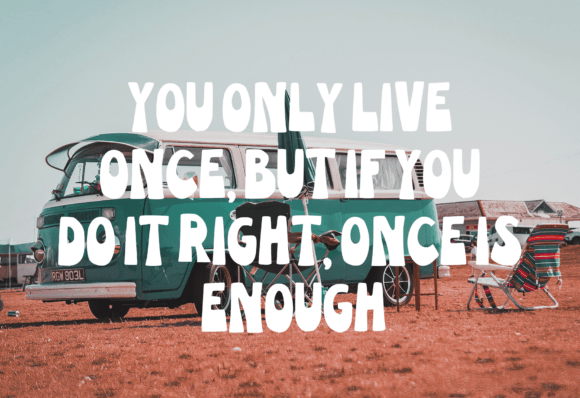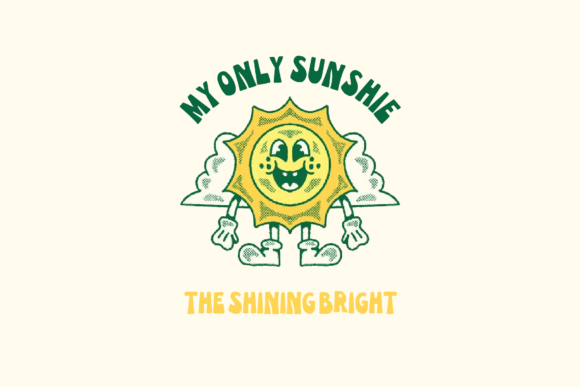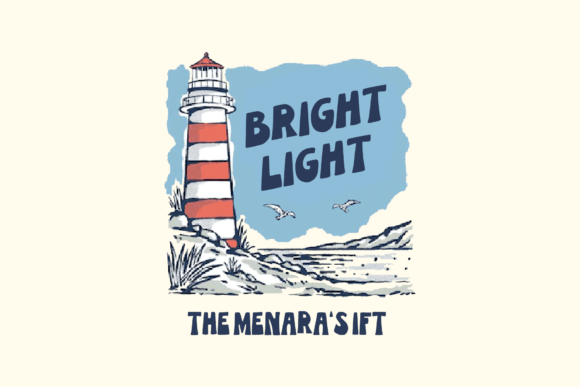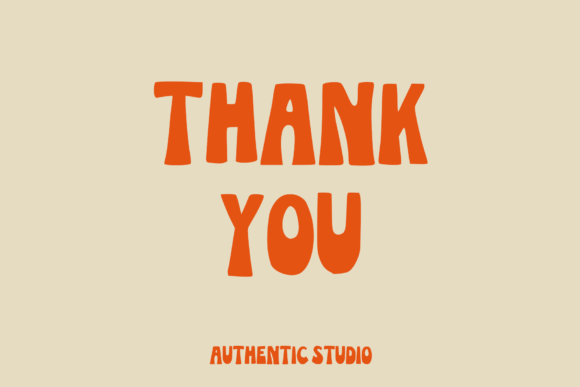
Bondan Font: Elevate Your Designs with a Retro Twist
In the realm of typography, fonts play a pivotal role in bringing a design to life. Among the myriad of fonts available, Bondan stands out as a magnificent and bold display font that can instantly add a retro touch to your projects. Whether you’re working on a branding campaign, a website design, or crafting a vintage-inspired artwork, Bondan is poised to become your go-to asset. Its versatility and distinctive charm make it an excellent addition to any designer’s font library.
The Essence of Bondan Font
Bondan is not just another font; it’s an experience. It embodies the essence of retro design while maintaining a level of sophistication that appeals to contemporary tastes. This bold display font is meticulously crafted to make a statement, offering a unique character that can elevate any design idea. From the bold and curvaceous lines to the meticulous attention to detail, Bondan exudes a sense of nostalgia that is hard to ignore.
One of the standout features of Bondan is its incredible versatility. Regardless of the subject matter or the industry you’re catering to, this font seamlessly adapts and enhances your design. Whether you’re creating a vintage-themed poster, a modern logo, or an engaging social media graphic, Bondan brings a level of sophistication and charm that is unparalleled. Its adaptability makes it a valuable resource for designers who work across various mediums and projects.
Why Choose Bondan?
- Retro Appeal: In an era where modern and minimalist designs are prevalent, Bondan offers a refreshing change with its bold and retro aesthetic.
- Legibility: Despite its bold nature, Bondan maintains excellent legibility, ensuring your message is conveyed clearly and effectively.
- Uniqueness: Stand out from the crowd with a font that is distinctive and memorable.
- Easy to Pair: Bondan can be paired with a variety of fonts to create stunning contrasts and hierarchies in your designs.
Applications of Bondan Font
The applications of Bondan are vast and varied. Here are a few ideas to get you started:
- Branding and Logos: Create a lasting impression with a logo that stands out.
- Posters and Flyers: Add a touch of nostalgia to your promotional materials.
- Web Design: Use Bondan to create headers, titles, and highlights that draw attention.
- Social Media Graphics: Elevate your social media presence with eye-catching graphics.
- Packaging: Stand out on the shelves with unique and captivating packaging designs.
Tips for Using Bondan Effectively
To make the most of Bondan, consider the following tips:
- Contrast is Key: Use Bondan in combination with simpler fonts to create visual hierarchy.
- Experiment with Colors: While Bondan looks great in bold colors, experimenting with gradients and textures can add depth.
- Play with Sizes: Utilize different sizes of Bondan to emphasize certain parts of your design.
Bondan is more than just a font; it’s a design statement. Its bold, retro charm and versatility make it an indispensable tool for designers looking to add a unique touch to their projects. Whether you’re aiming for a vintage vibe or simply want to stand out in a crowded design landscape, Bondan is your perfect ally. Incorporate Bondan into your font library today and discover a world of limitless design possibilities.